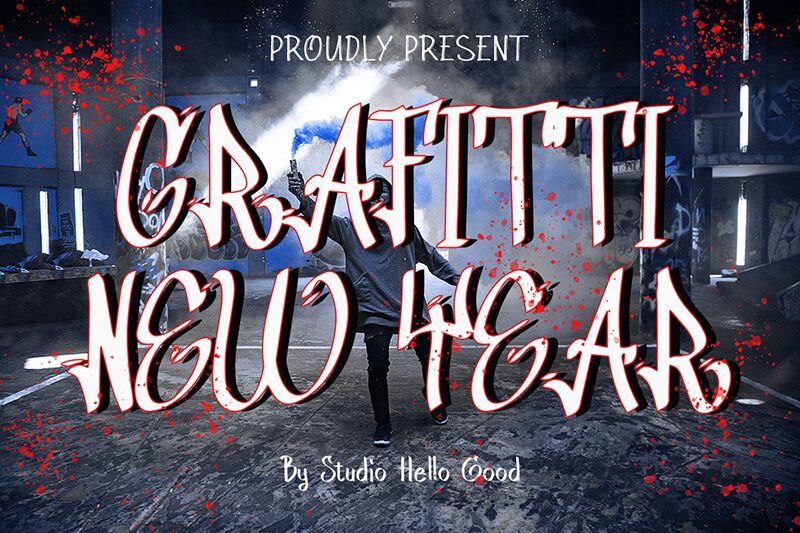
Grafitti New Year font by Studio Hello Good is a free rebellious, artistic design. This graffiti-inspired font is expressive, energetic, and, for lack of a better word, dynamic. It’s filled with urban style and can suit all types of uses related to this theme whether personal or commercial. Each glyph is different from the other as if it was handwritten with a spray can. The font also includes numbers, punctuation, and special characters.
This typeface would make a perfect choice for t-shirts, typography, party invitations, advertisements, magazines, packaging, branding, posters, and more. Experiment with it for both personal and commercial purposes without having to worry about licensing. Download and let your own creative juices flow!